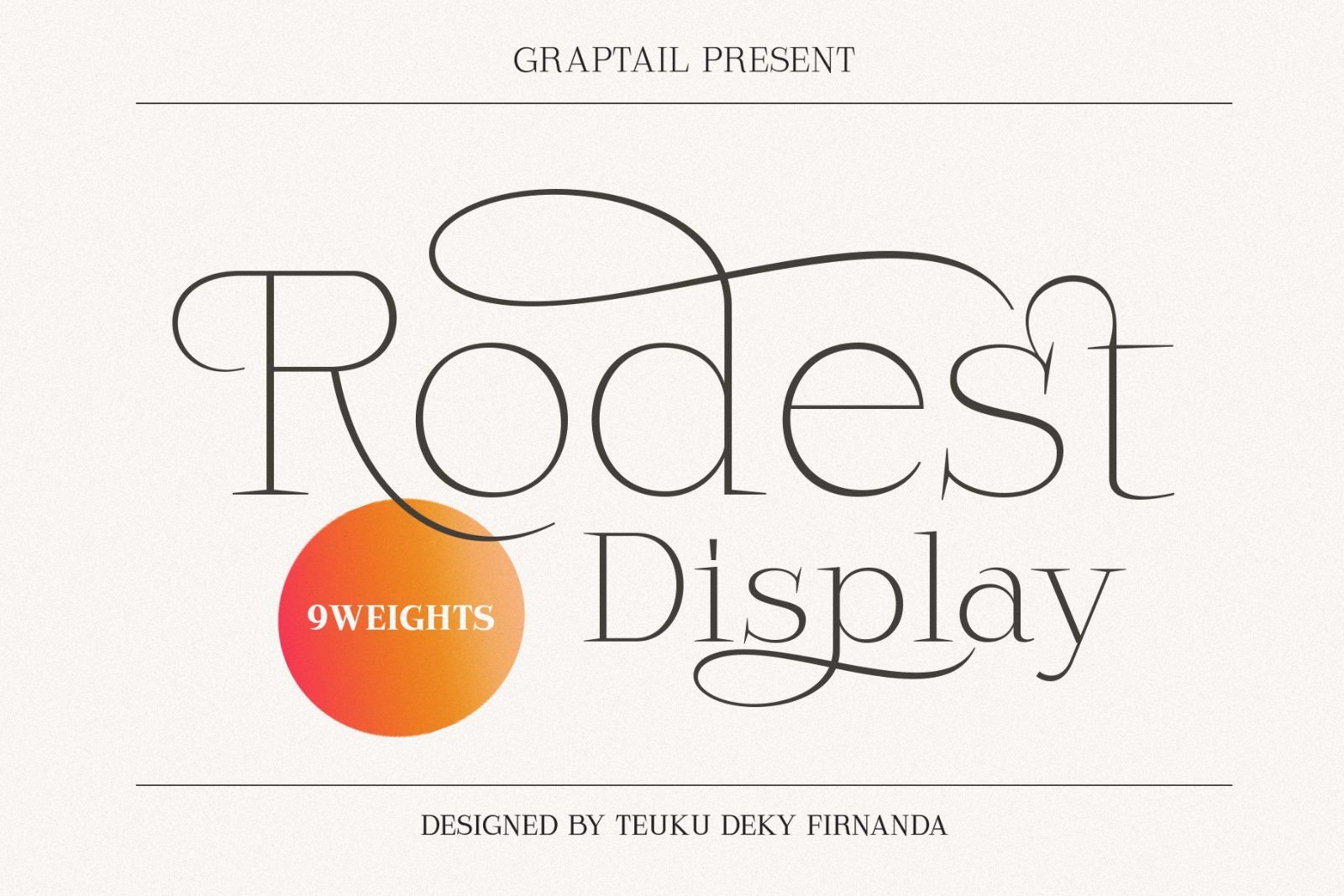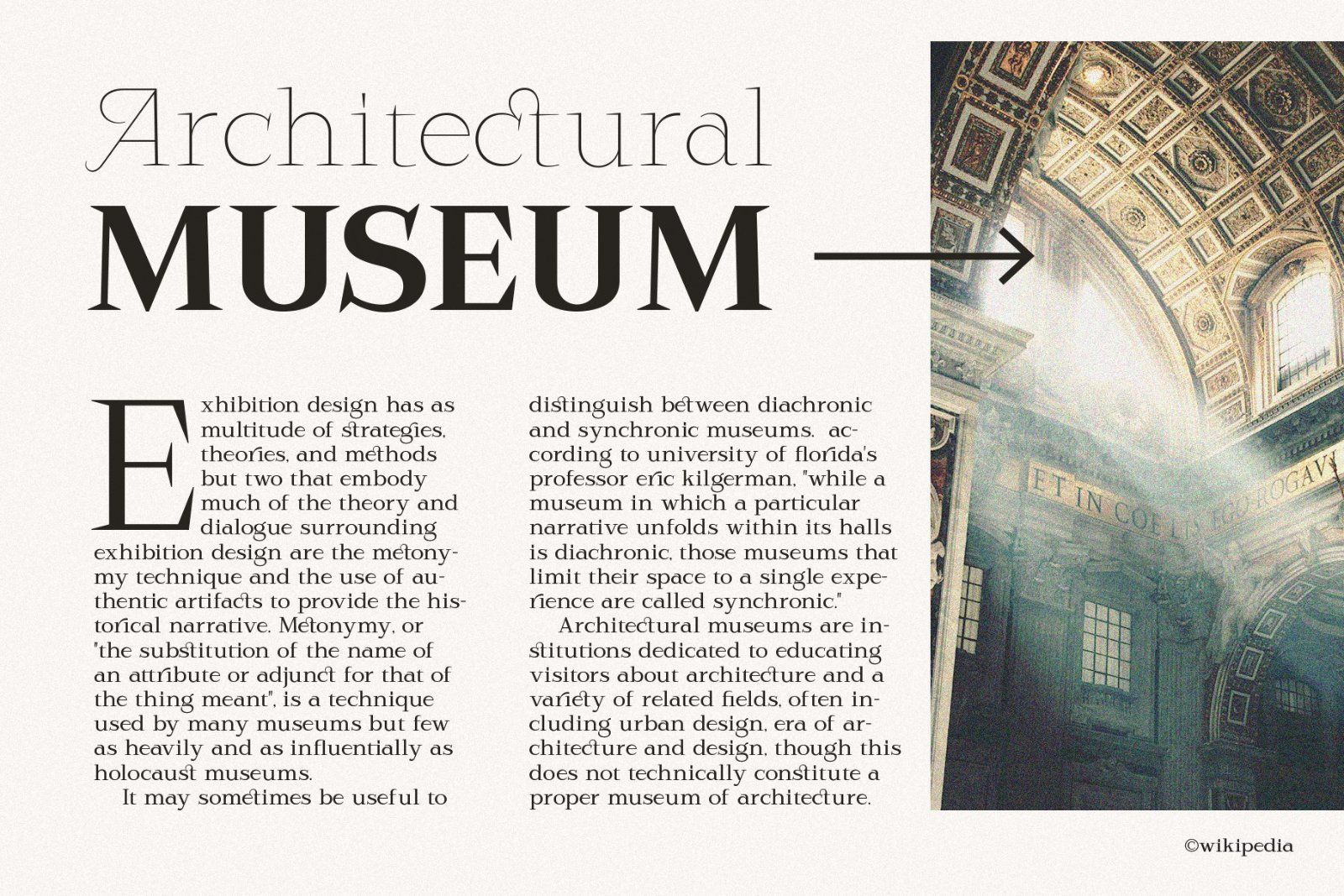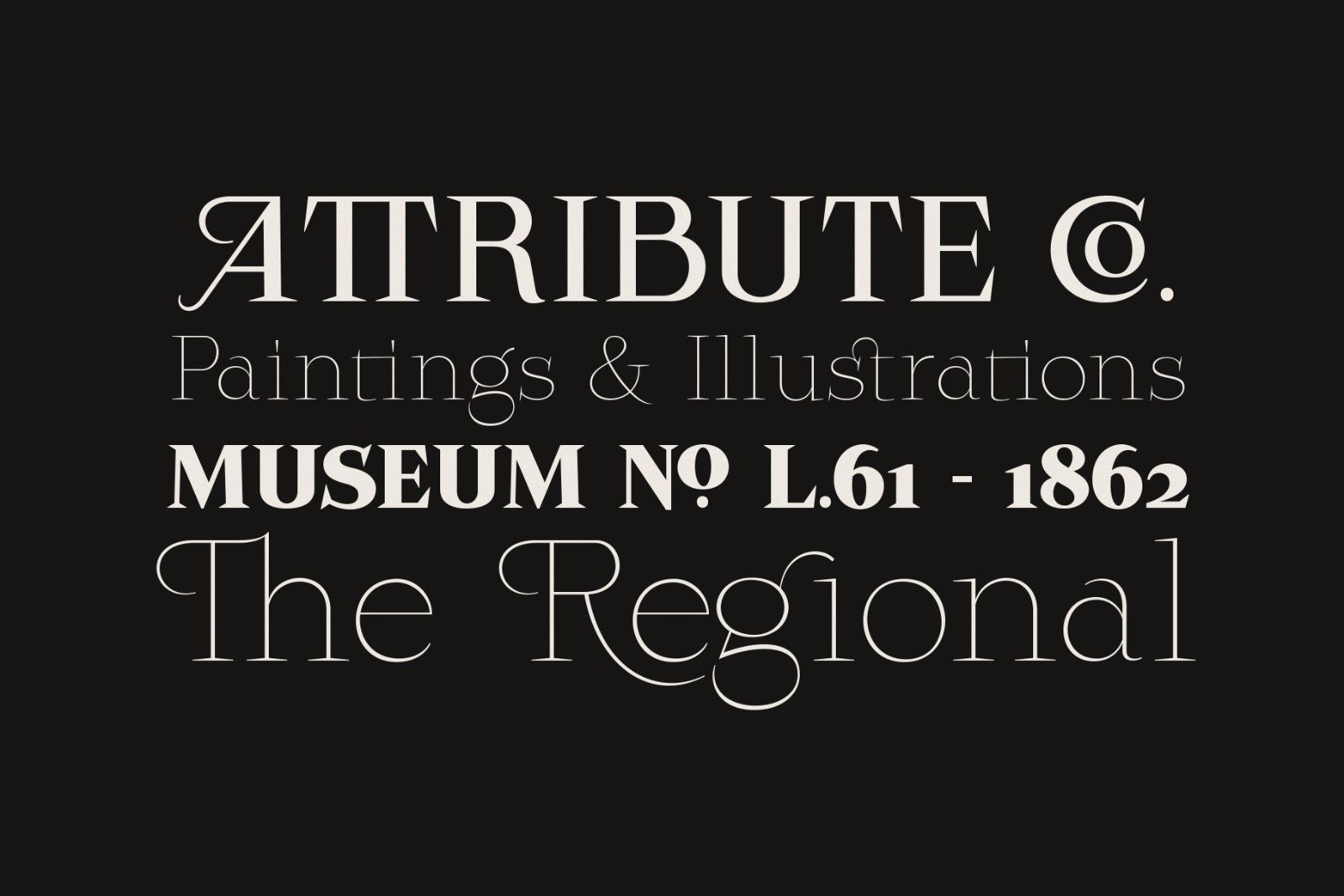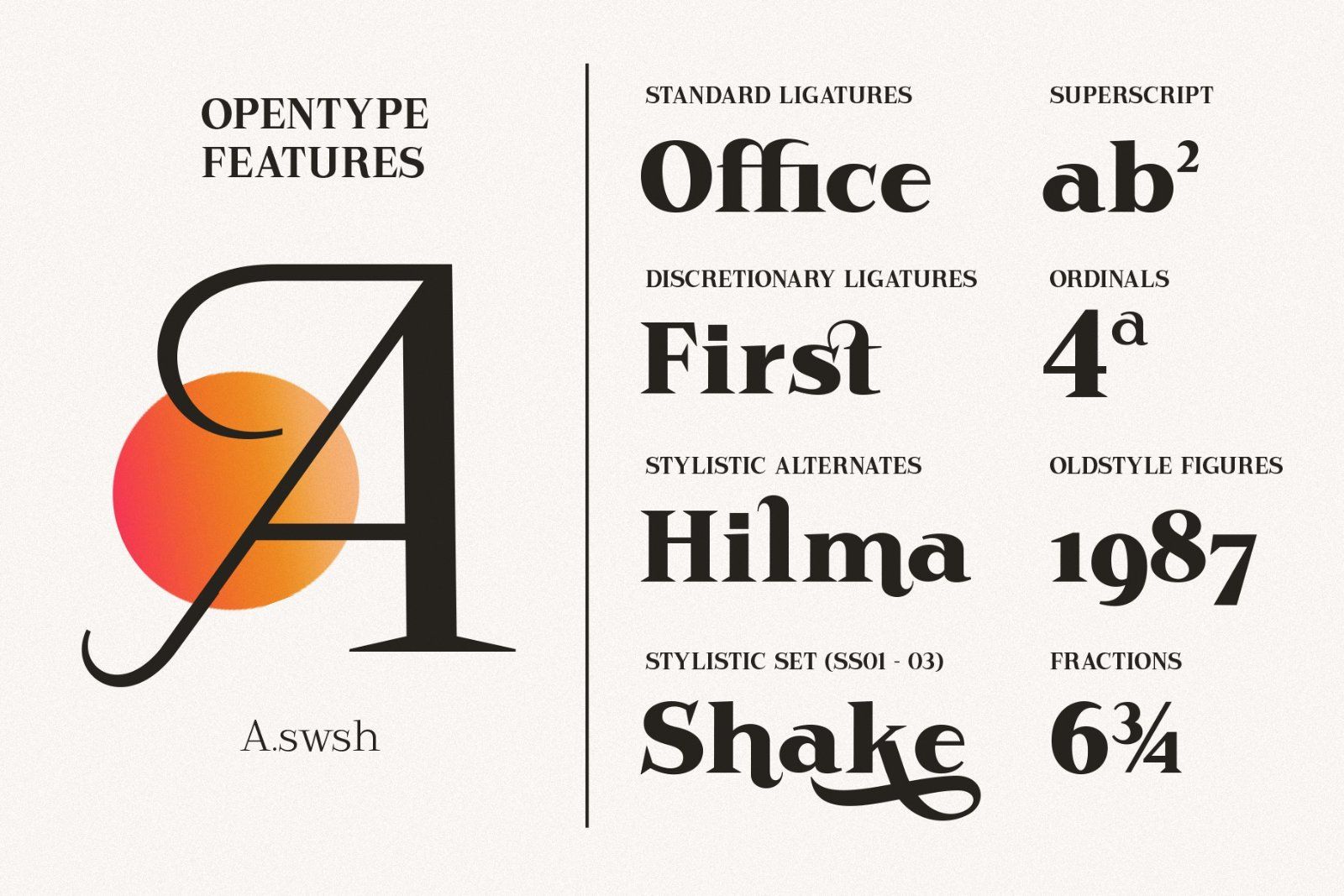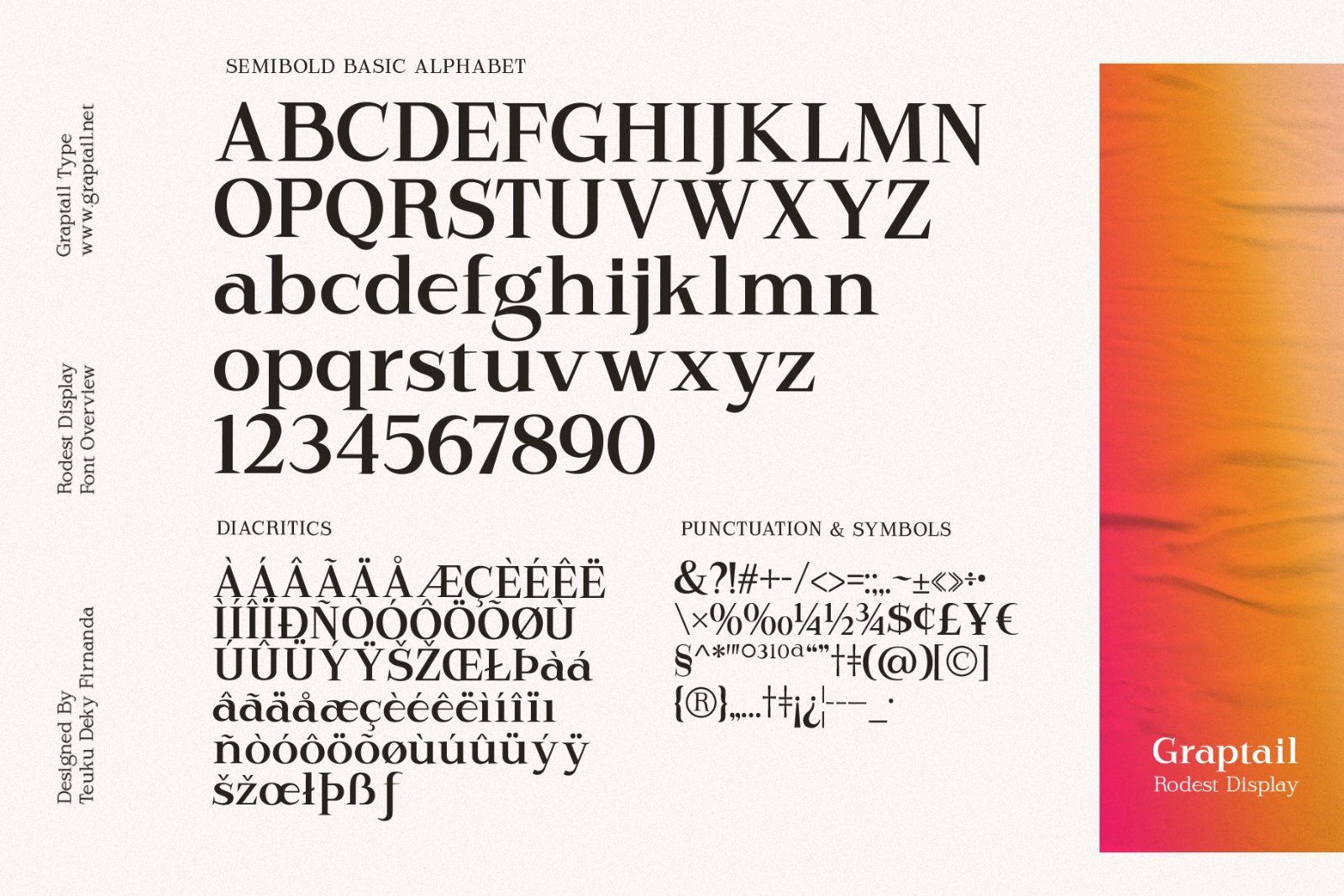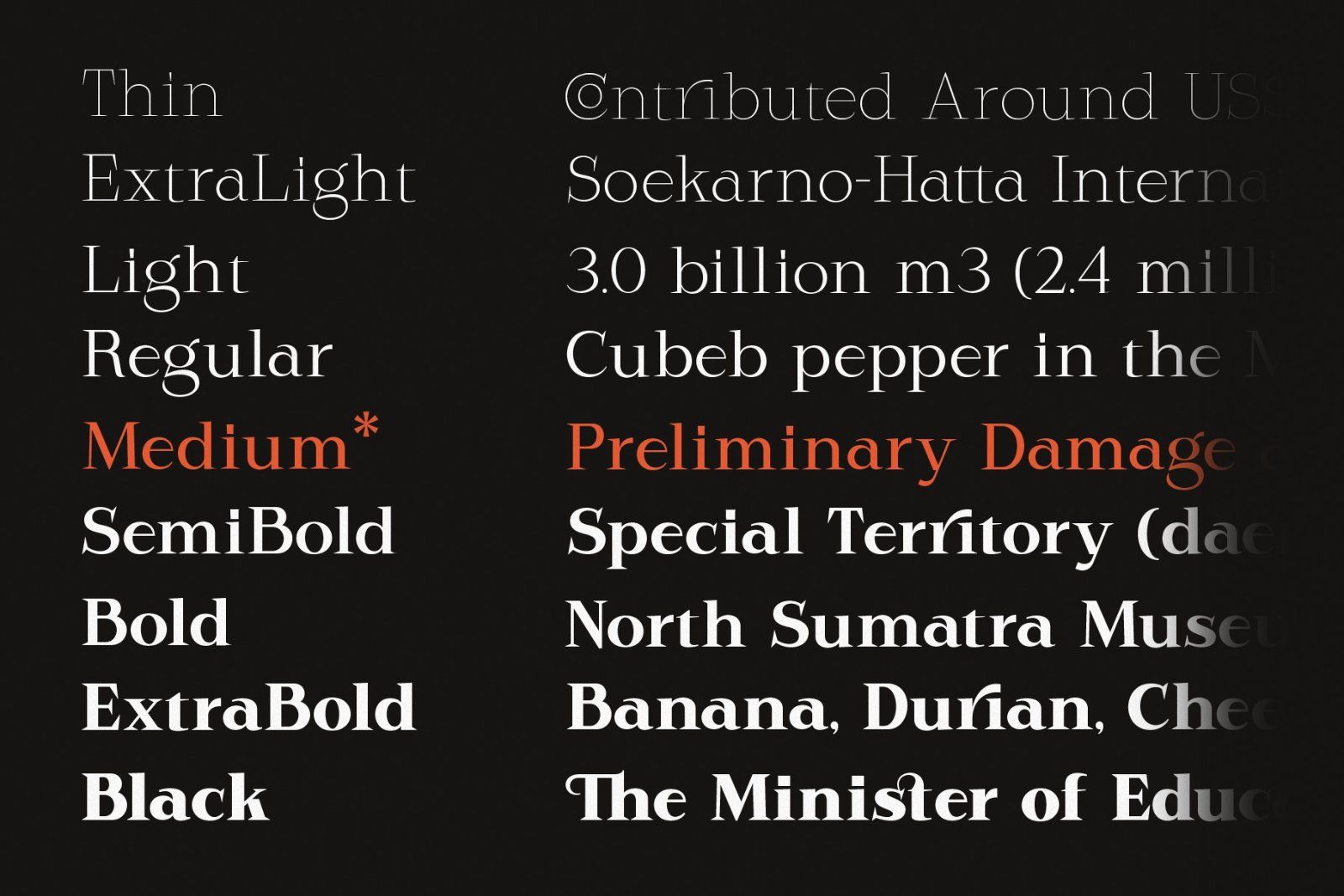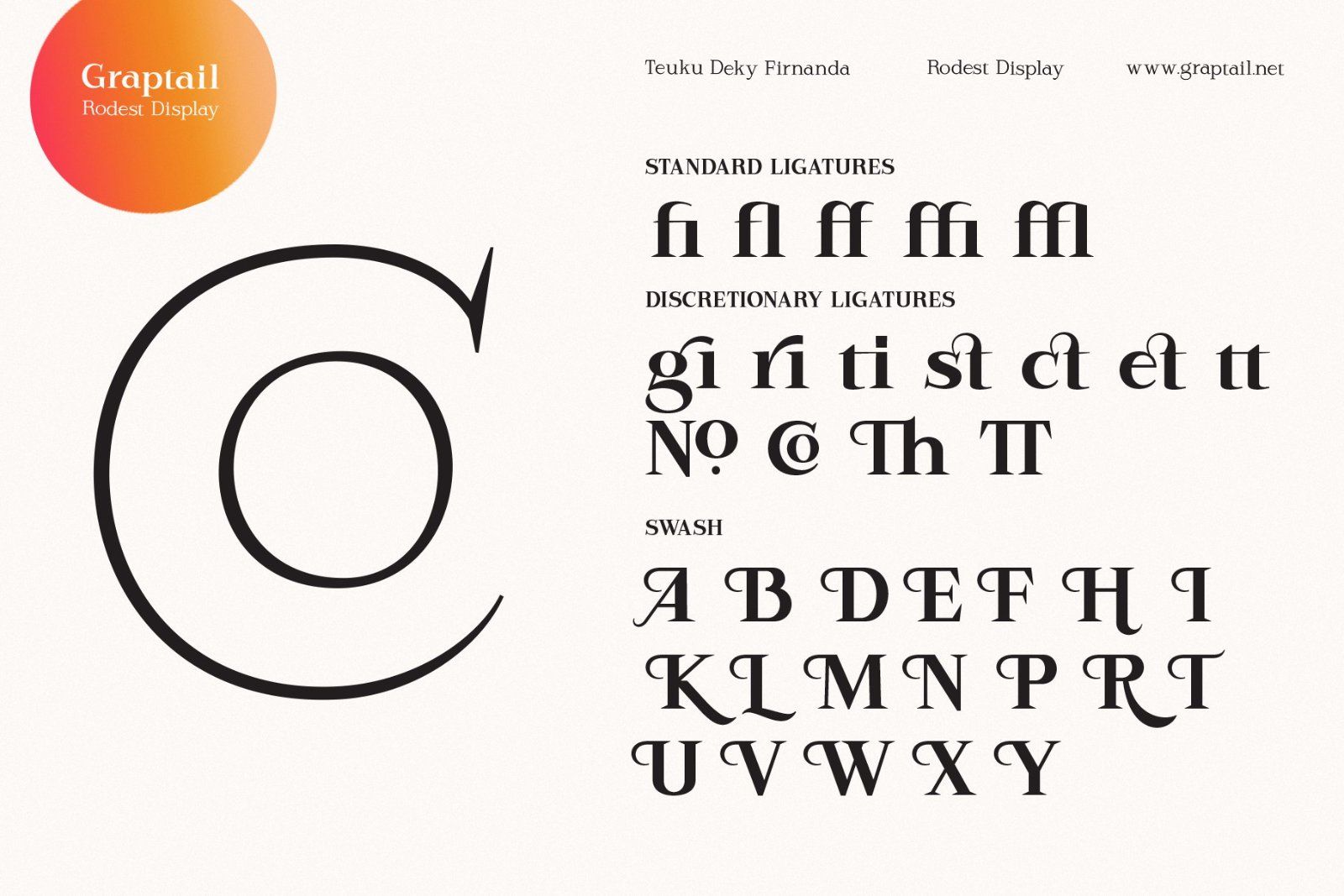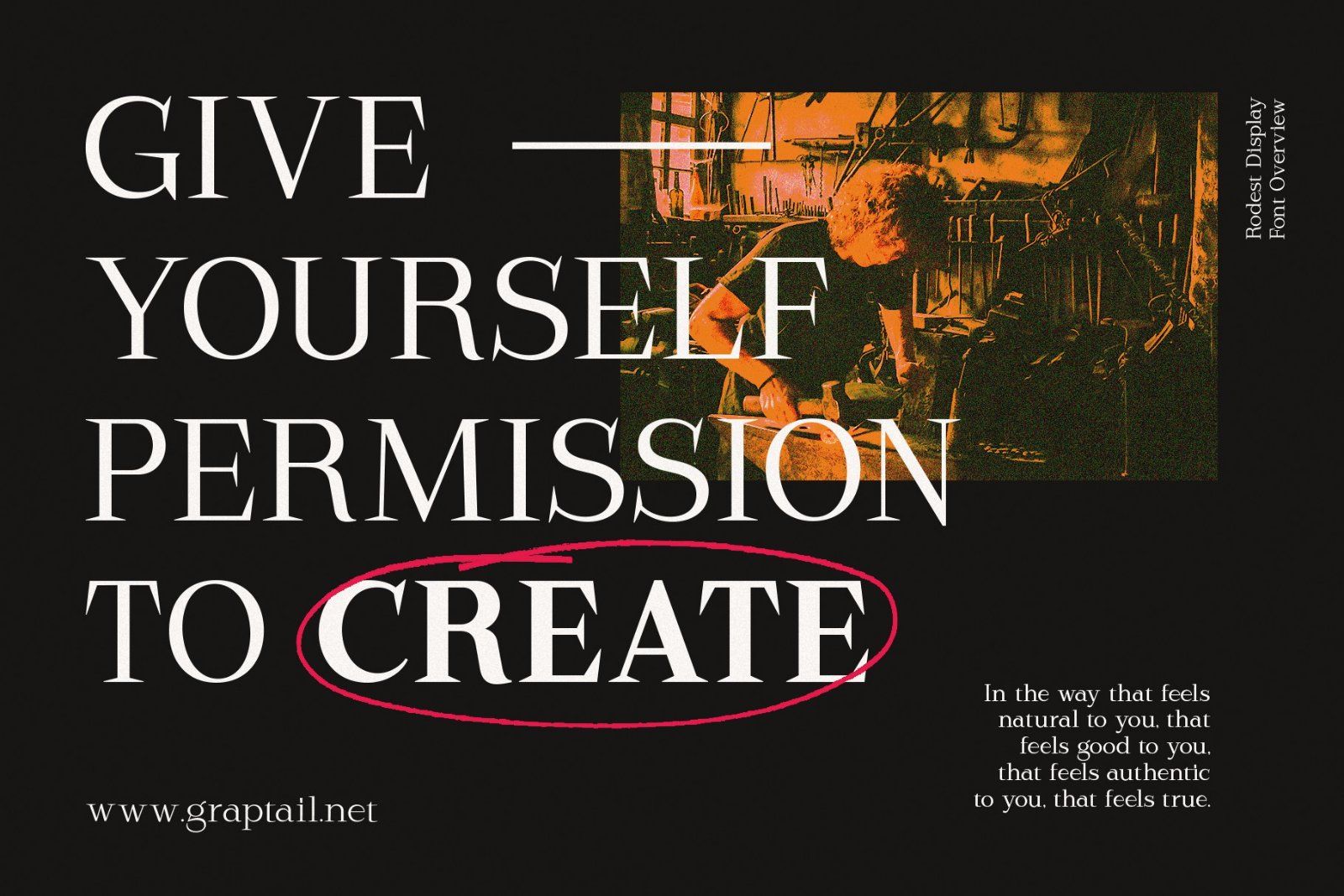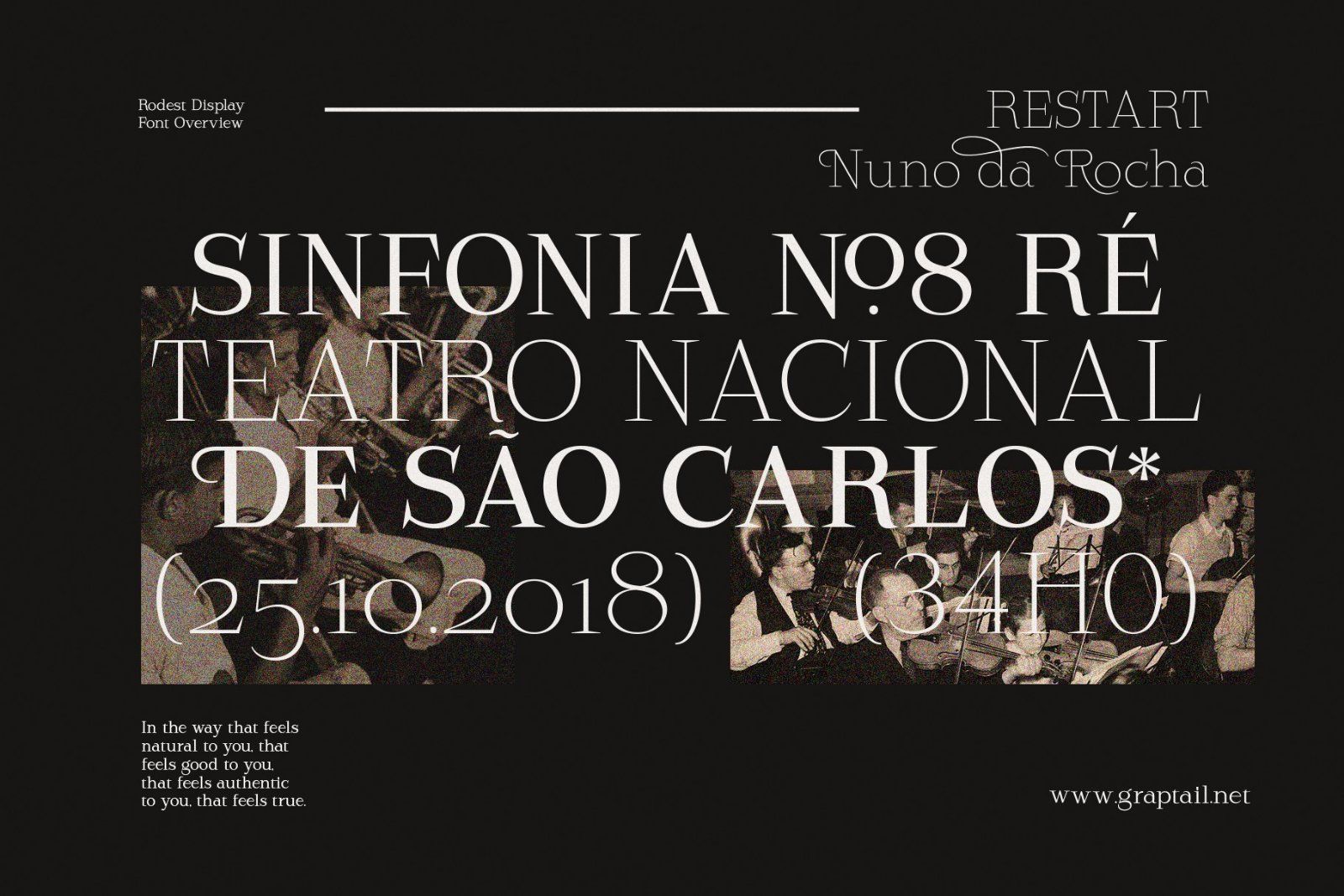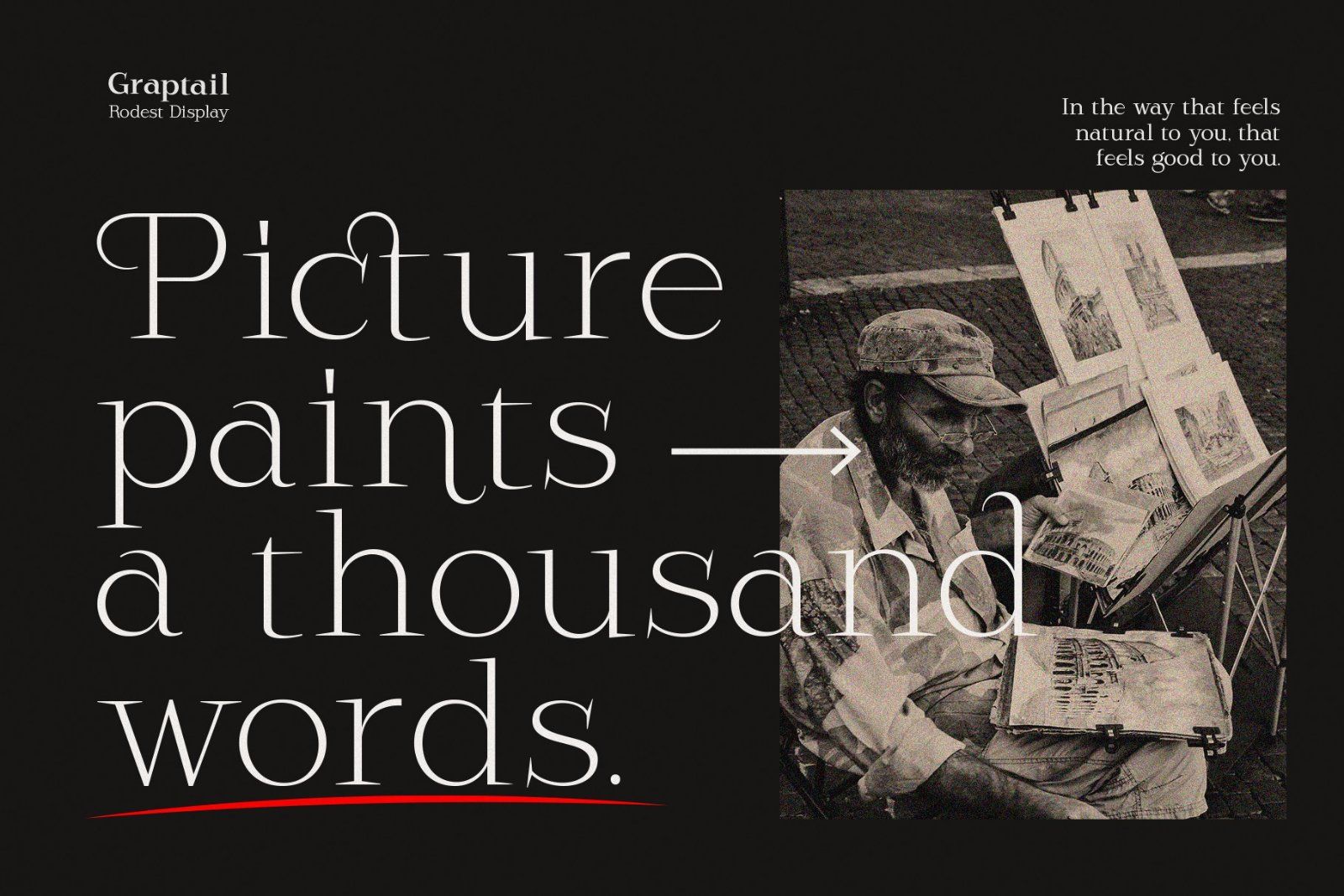
Rodest is a very soft serif typeface that adds a touch of curvature to certain letters to reflect the feminine value of the shape.
The contrast between thick and thin strokes gives Rodest a harmonious and stylish look. It comes in 9 variables plus an alternative version making it perfect for editorial designs, branding, magazines, logos, headers, and more.